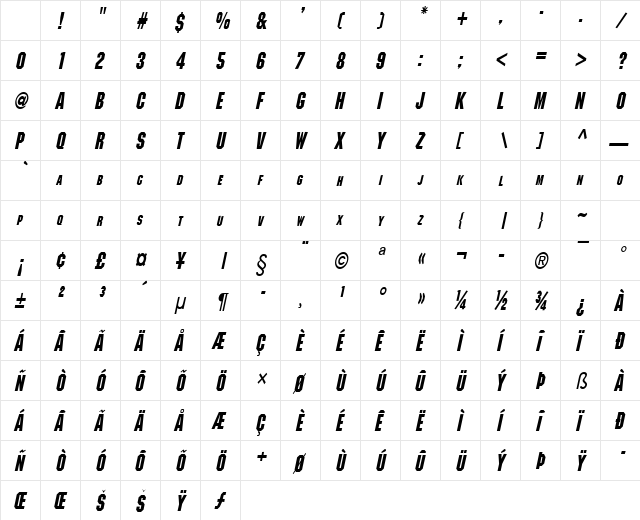
Complete Block-Condensed Bold Italic glyph index. Displaying only characters natively supported by Block-Condensed Bold Italic font.
Block-Condensed is a composed and adaptable typeface that performs quietly and consistently across a wide range of design contexts. The slanted form adds forward momentum and visual energy. Its bold stroke weight gives it real presence on the page. Its narrow stance lets it pack a punch even in space-constrained designs.
Pro Tip: Use Block-Condensed for emphasis, pull quotes, and subheadings where its slanted energy can add rhythm to the layout.